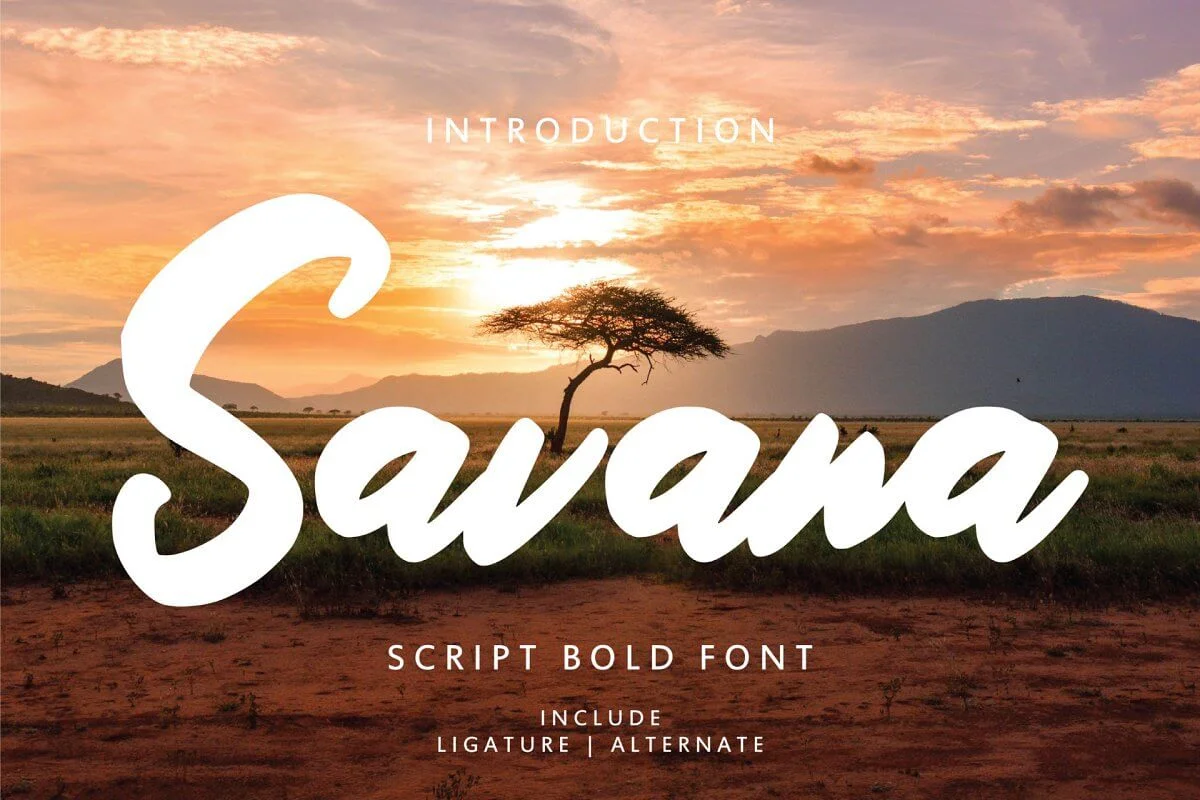
Savana Script Bold Font
Savana Script Bold Font is perfect for wedding invitations, greeting cards, logos, branding projects, product packaging, magazine headers, photography watermarks, social media posts, advertisements, product designs, labels, stationery, and any project requiring an elegant handwritten touch.
What makes Savana Script Bold Font exciting is its authentic hand-lettered appearance that brings warmth and personality to any design. The bold weight adds emphasis while maintaining the graceful flow of script calligraphy, making it stand out in both digital and print applications. Its versatile nature allows designers to create sophisticated yet approachable designs.
The Savana Script Bold Font family typically includes uppercase and lowercase characters, numerals, punctuation marks, and special ligatures that enhance the natural flow of the text.